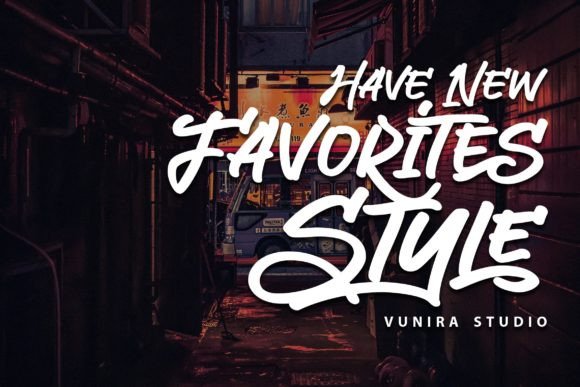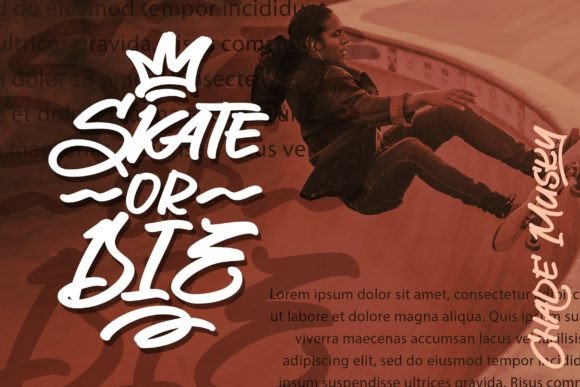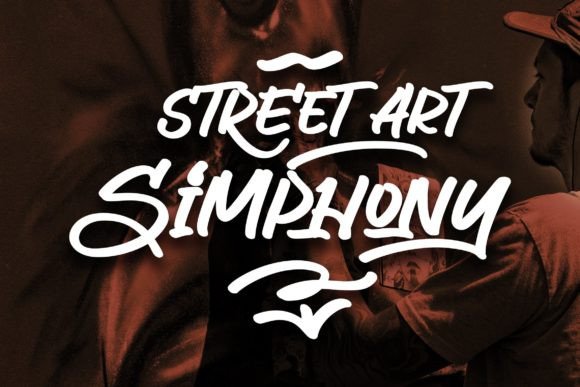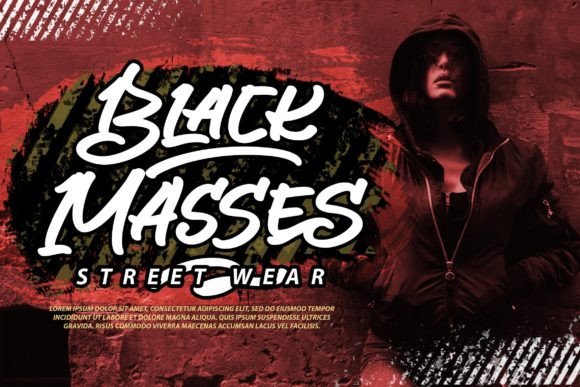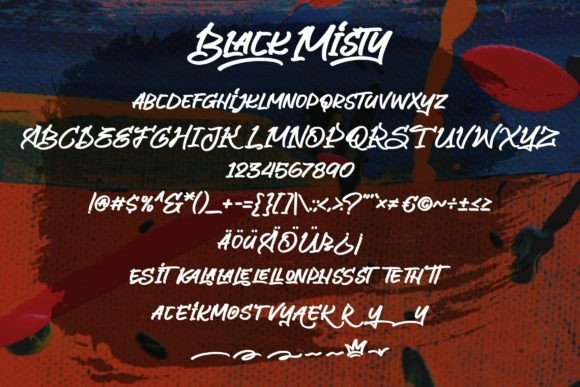
The Elusive Perfect Font: My Encounter with Black Misty
I recall working on a project for a client who needed an elegant yet edgy font for their branding materials. I spent hours scouring through font libraries, but nothing seemed quite right. That was until I stumbled upon Black Misty, a street handwriting display font with a beautiful calligraphy style. It was love at first sight! ✨
Black Misty has since become a staple in my design toolkit, and I’m excited to share my experience with you. Whether you’re a designer, crafter, or creative hobbyist, this font is sure to elevate your work.
An Honest Review of Black Misty
- 💃 Beautiful calligraphy style that’s perfect for invitations, greeting cards, and posters
- 📚 Highly versatile and can be used for branding materials, business cards, and quotes
- 👍 Easy to read and understand, even in large blocks of text
- 🎨 Stunning OpenType features, glyphs, and stylistic alternates for added creativity
While Black Misty is an amazing font, there are a few things to keep in mind: 🤔
- ⚠️ Some characters may not work well in very small font sizes
- ⚠️ Limited language support, so be sure to check compatibility before use
The Story Behind Black Misty
Black Misty was designed by a talented type designer who wanted to create a font that captured the essence of street art and calligraphy. With its bold, expressive lines and beautiful OpenType features, Black Misty is the perfect fusion of style and functionality.
Q: What is the best use for Black Misty?
A: Black Misty is perfect for creative projects that require a touch of elegance and edginess, such as invitations, greeting cards, branding materials, and posters.
Q: Is Black Misty suitable for body text?
A: While Black Misty is easy to read, it’s best suited for headlines and titles. For body text, consider using a clearer font.
Q: Is Black Misty available in multiple languages?
A: Black Misty has limited language support. Be sure to check compatibility before using it for multilingual projects.